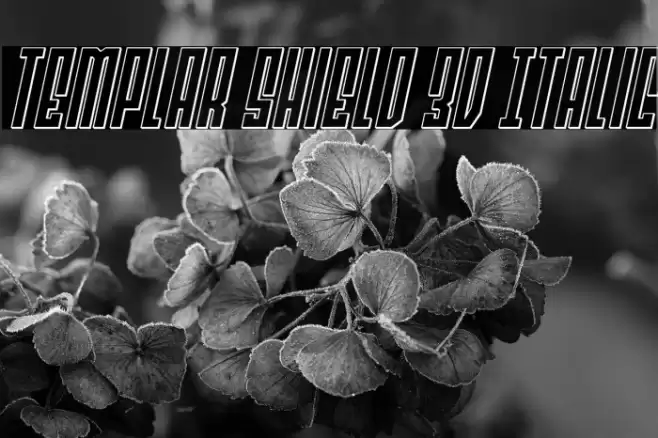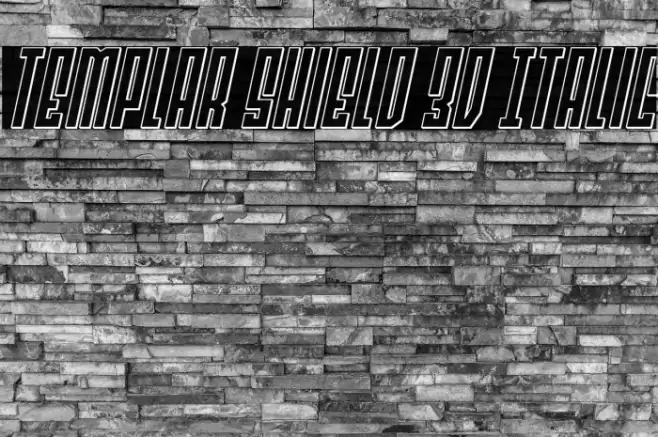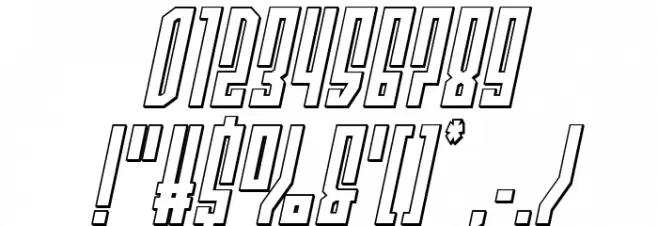
Templar Shield 3D Italic Font
Templar Shield 3D Italic Description
This font exhibits a bold, three-dimensional appearance with a distinct italic slant, creating a dynamic and impactful visual effect. The characters are outlined, giving them a layered look that enhances their depth. The geometric design is consistent across all characters, featuring sharp angles and clean lines. This style is reminiscent of futuristic or sci-fi themes, making it suitable for projects that require a modern and edgy aesthetic. The uppercase and lowercase letters maintain uniformity in style, while the numerals and special characters are designed to match the overall theme, ensuring a cohesive look.
A bold, 3D italic font with a futuristic and dynamic style from Regular fonts.
- Proposed Projects: Ideal for video game titles, sci-fi movie posters, tech branding, and futuristic event flyers.